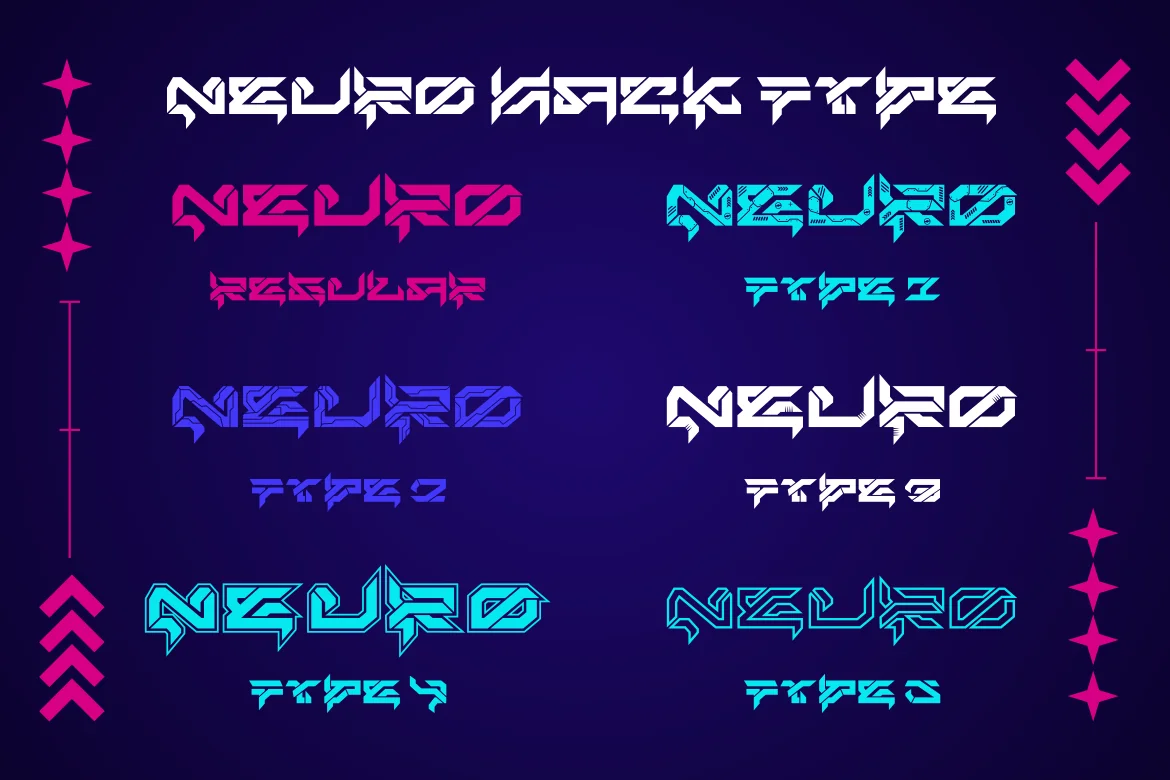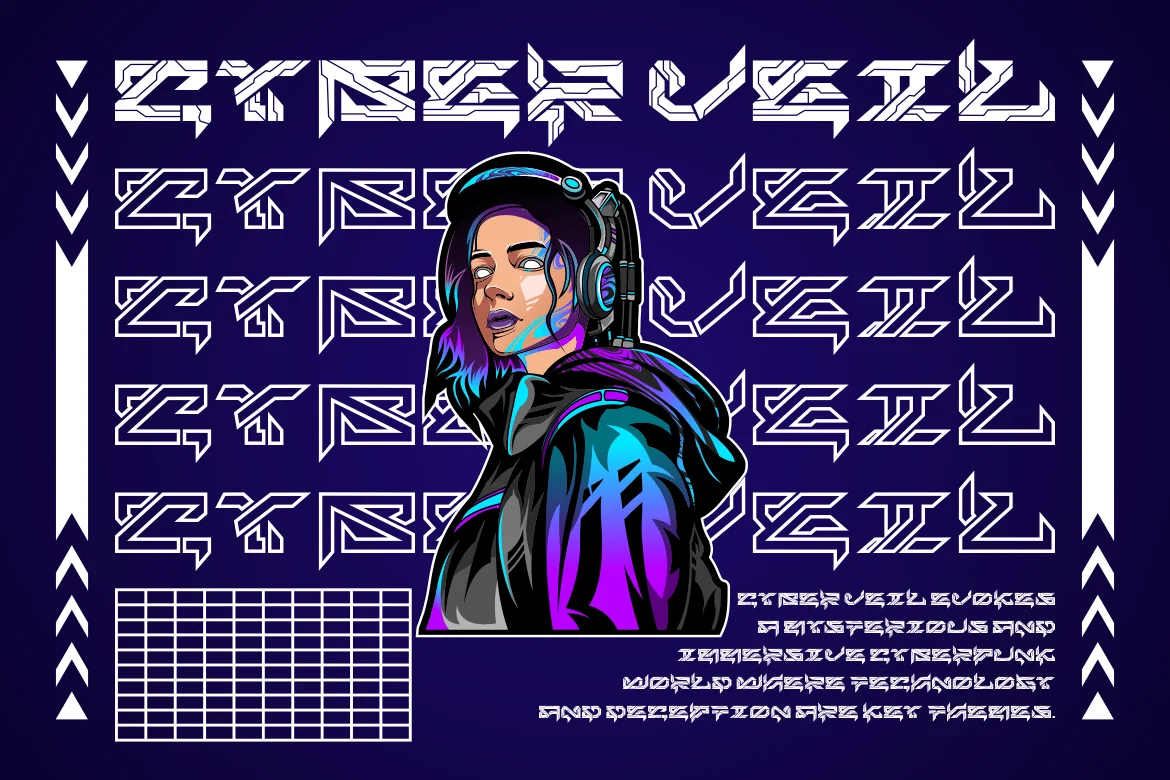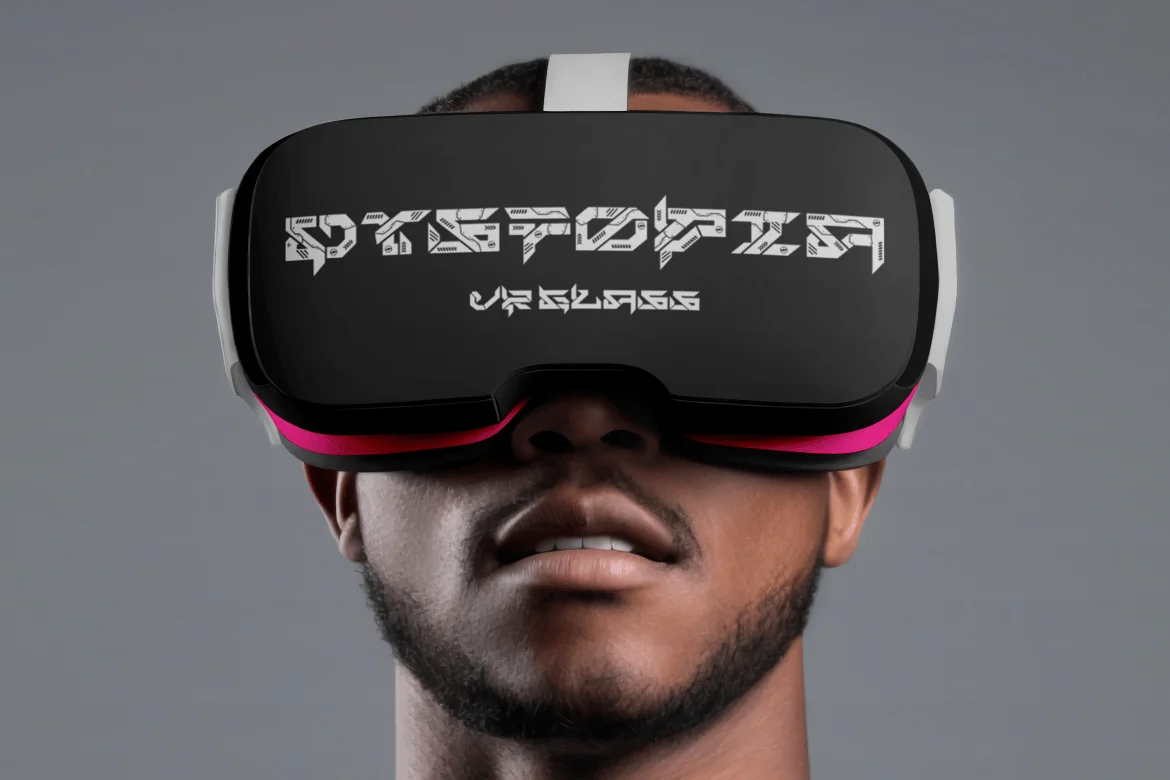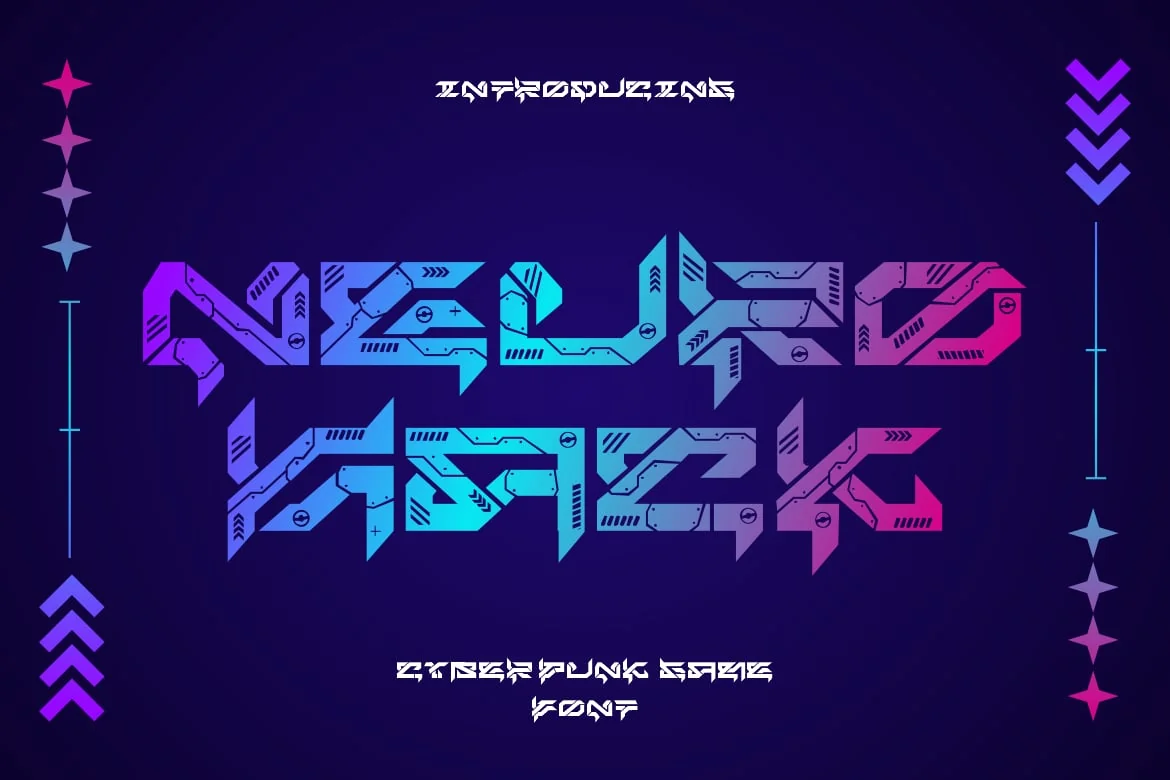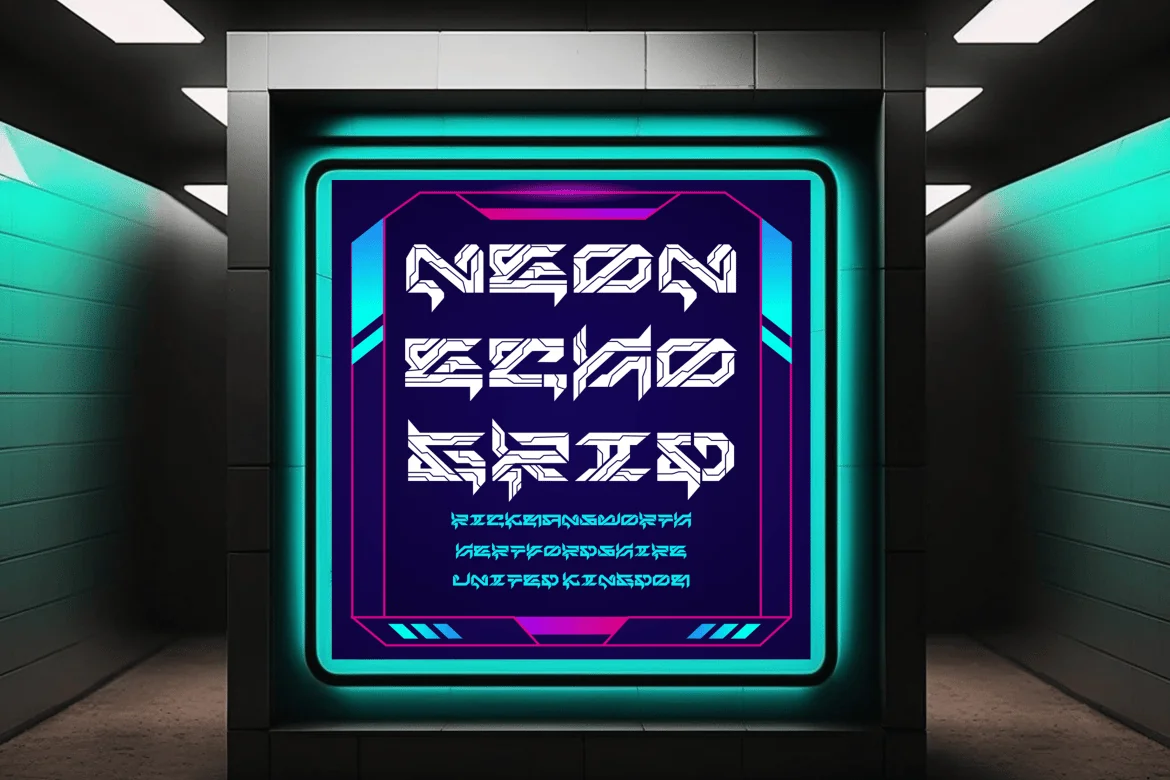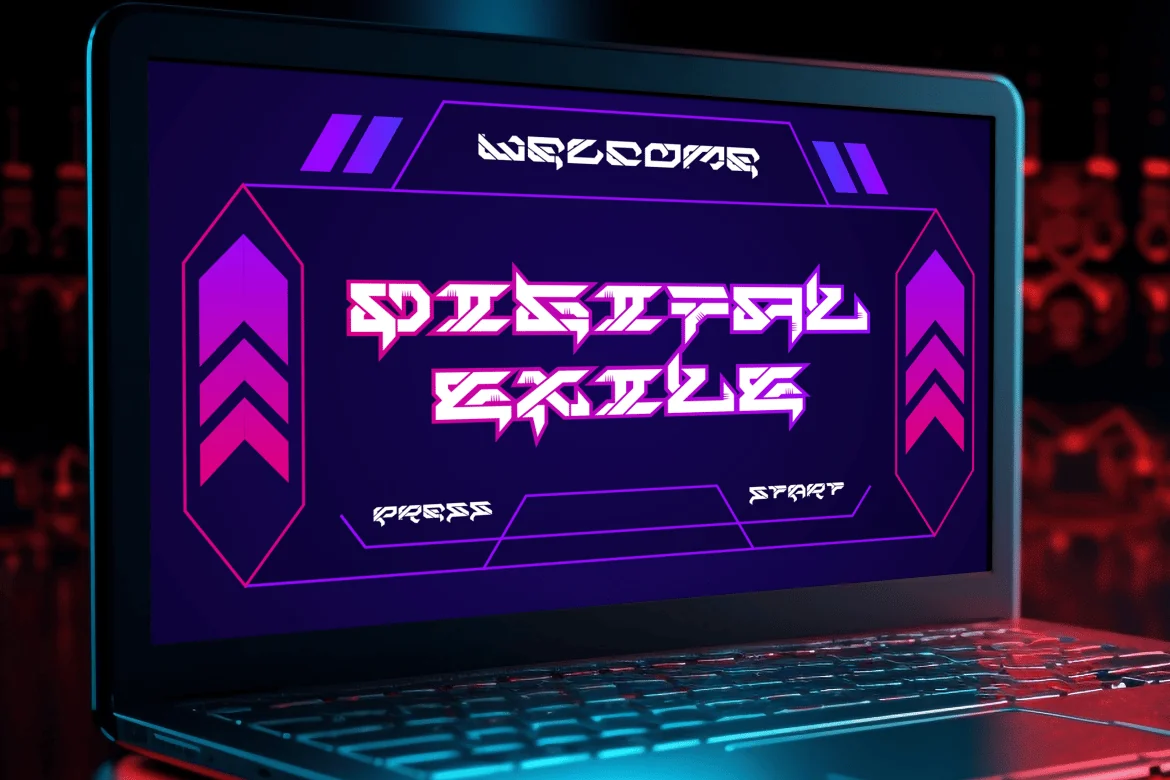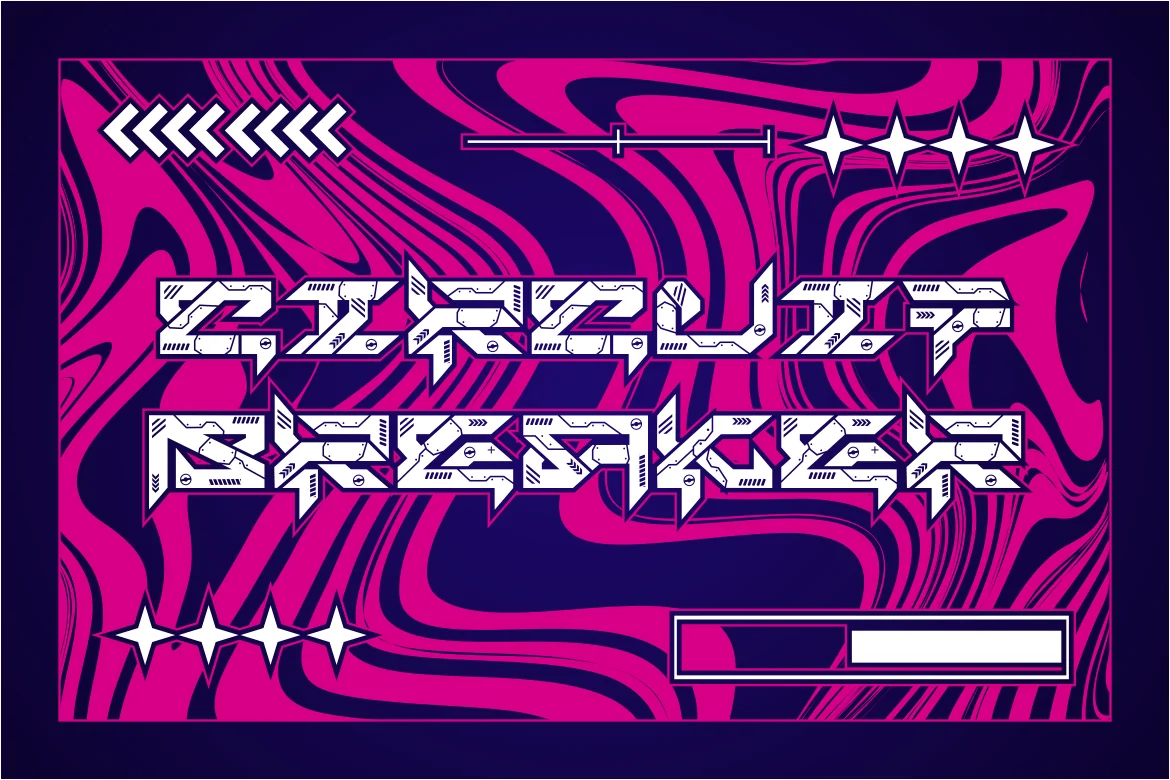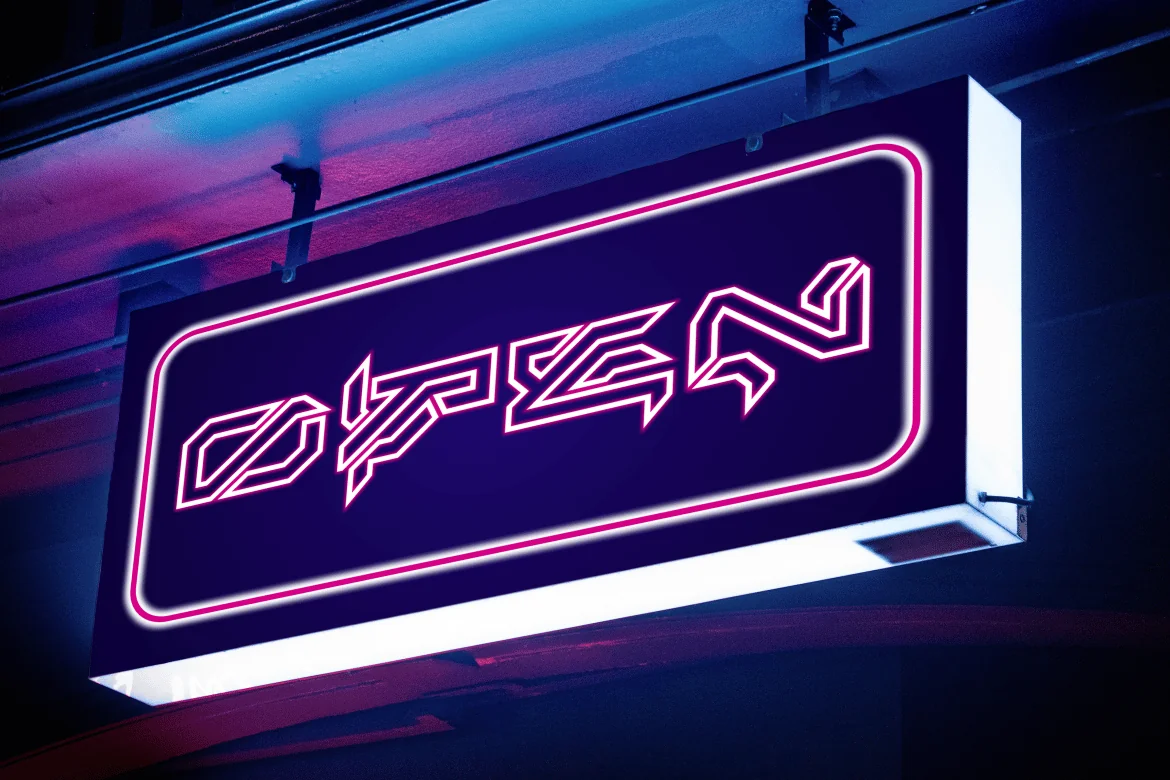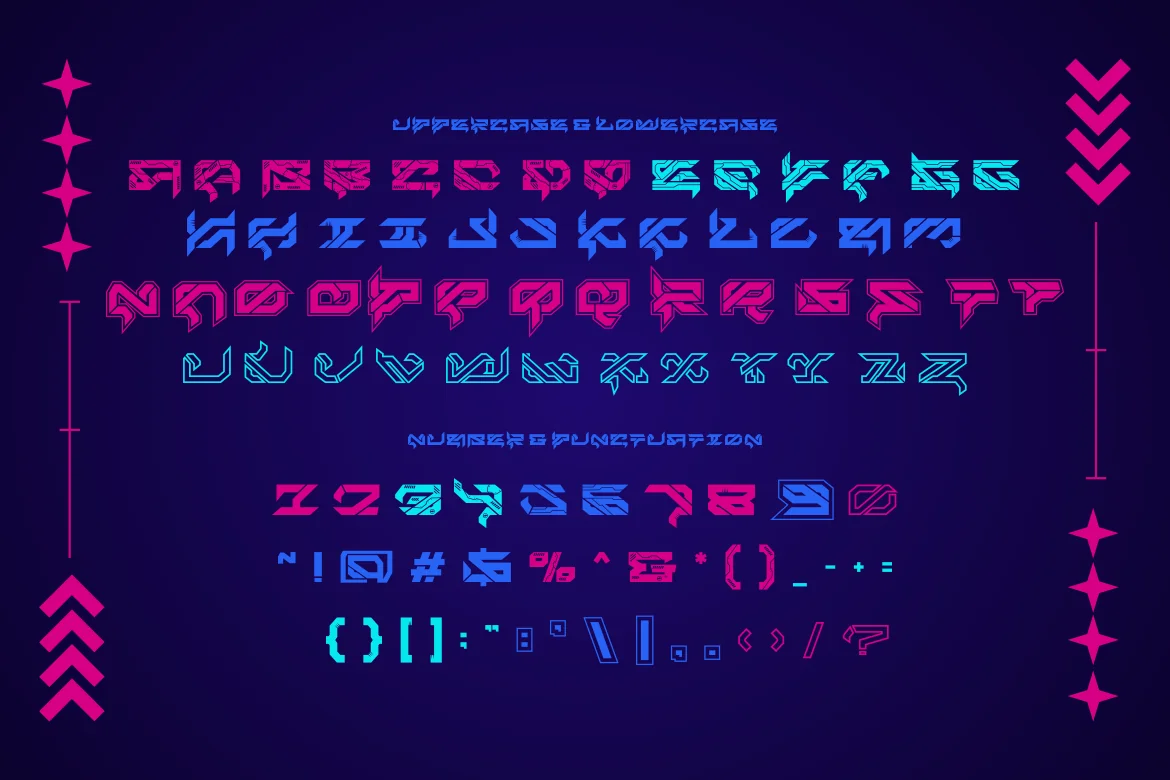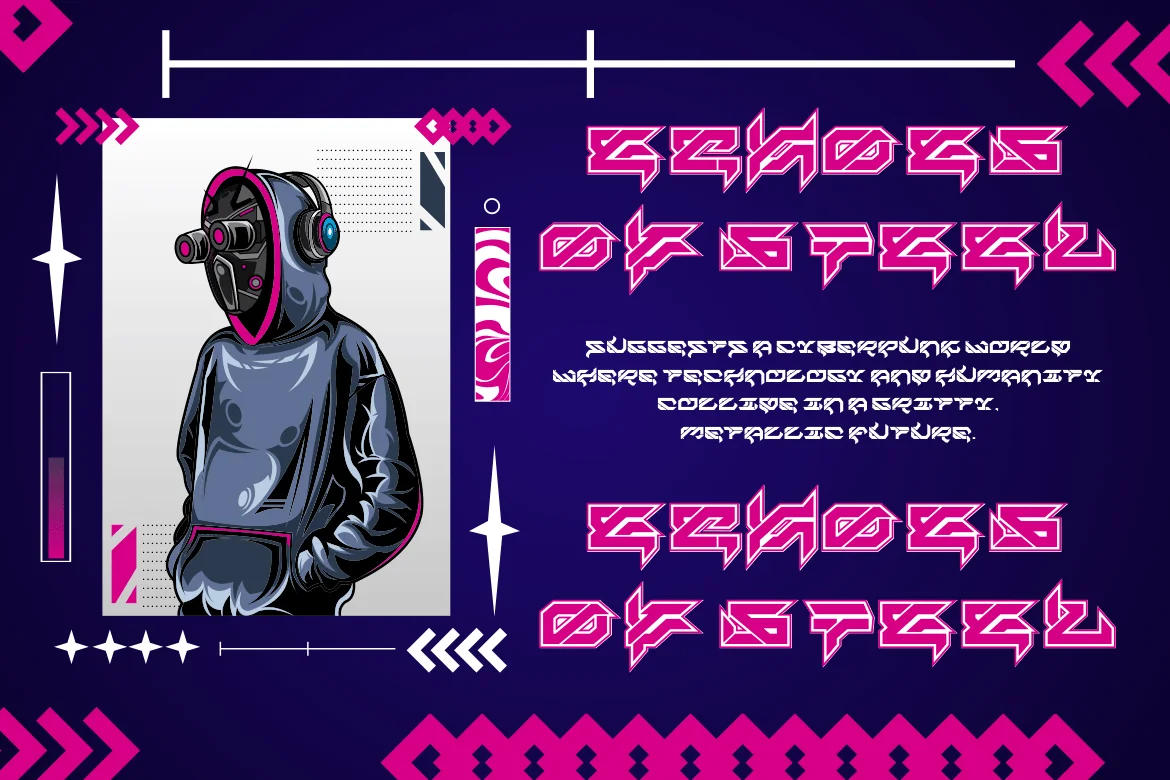
Neuro Hack – Cyberpunk Game Font
Introducing Neuro Hack – Cyberpunk Game Font, a dynamic typeface built for the digital age. With its futuristic and edgy design, this font captures the spirit of the cyberpunk genre and is perfect for any project that needs a high-tech, sci-fi touch. Neuro Hack’s bold letterforms are interwoven with intricate details and neon-inspired effects, making it ideal for gaming titles, tech branding, or any design meant to evoke a sense of the digital frontier. This font’s unique blend of sharp, circuit-like elements and neon glow makes it a standout choice for posters, logos, and packaging.
Whether you’re designing for entertainment, advertising, or even personal branding, Neuro Hack provides a modern, tech-savvy vibe that resonates with fans of the cyberpunk aesthetic. The font’s electric energy and digital-inspired lines bring a futuristic feel to any layout, from movie posters and game covers to business cards and magazine titles. Ideal for creatives who want to infuse a high-tech, game-inspired look into their projects, Neuro Hack embodies the boldness and innovation of the digital world.